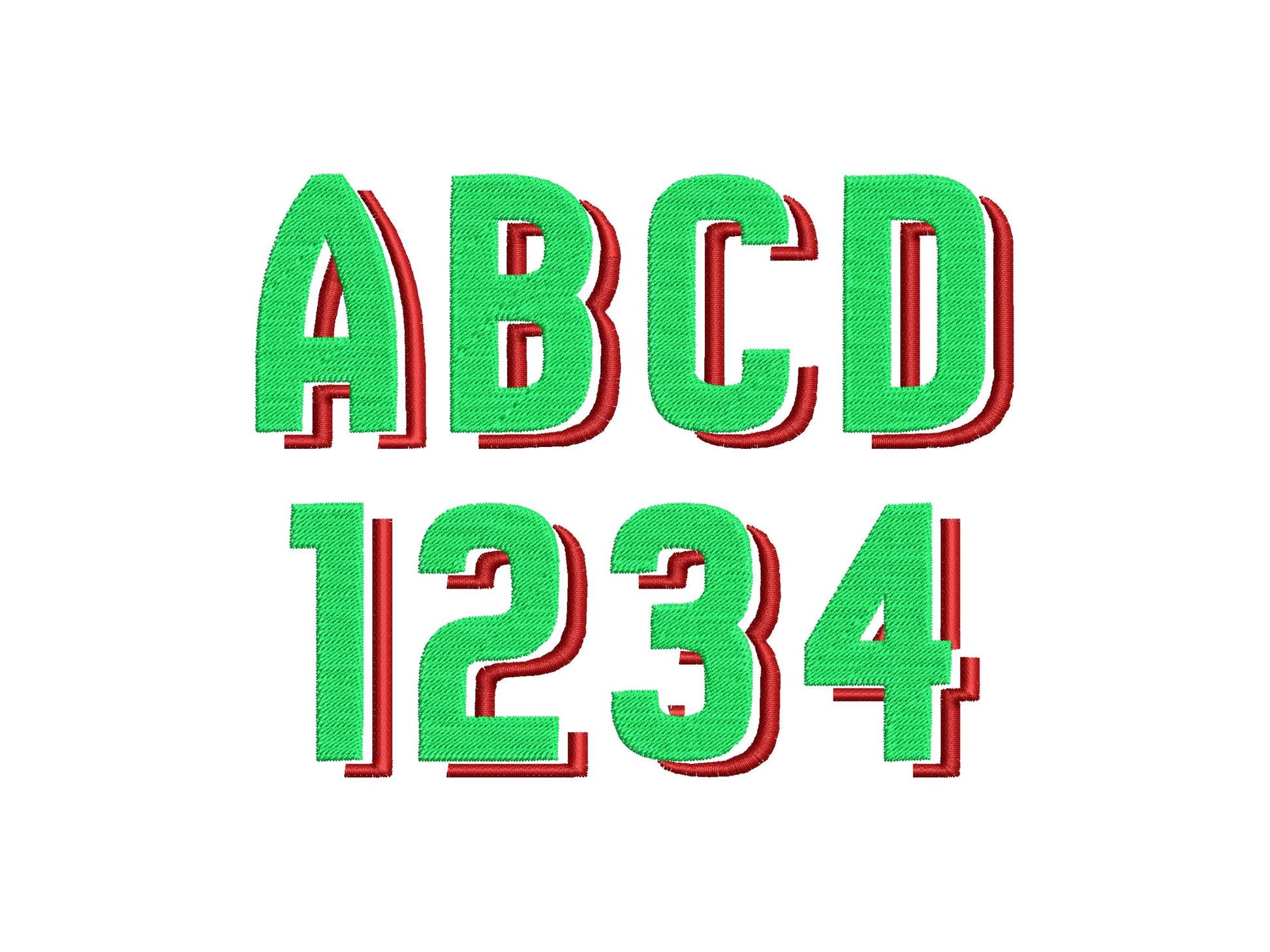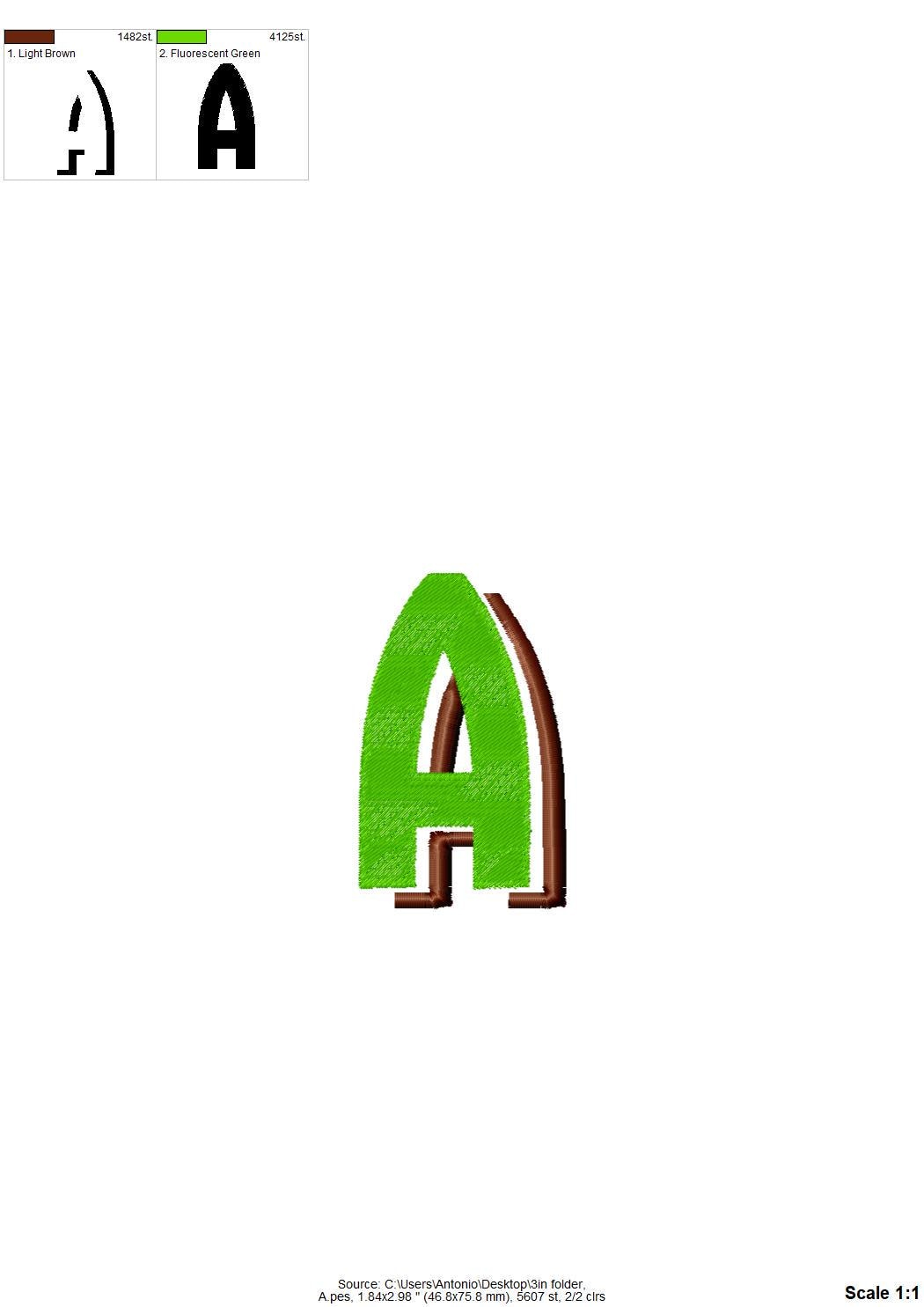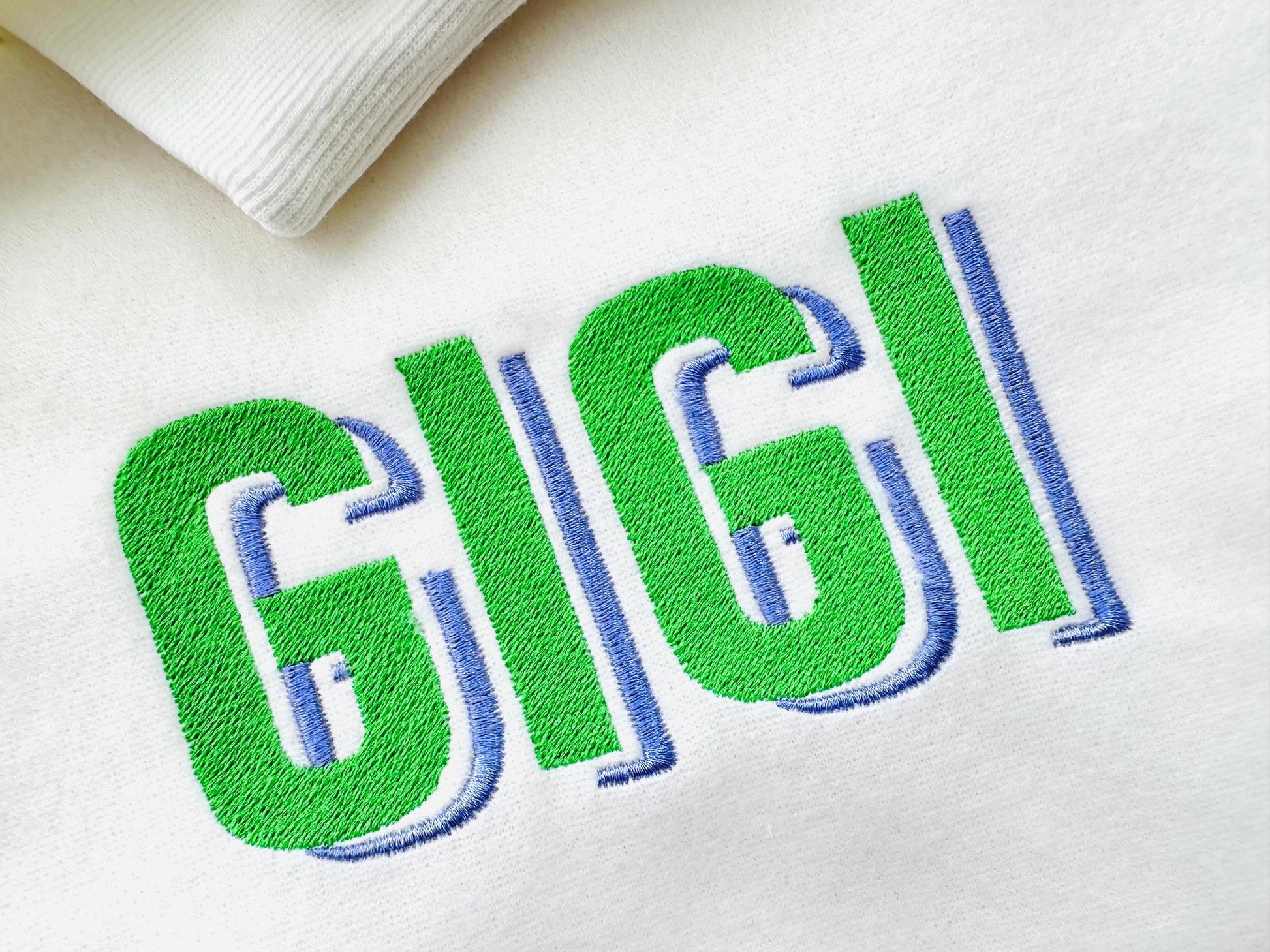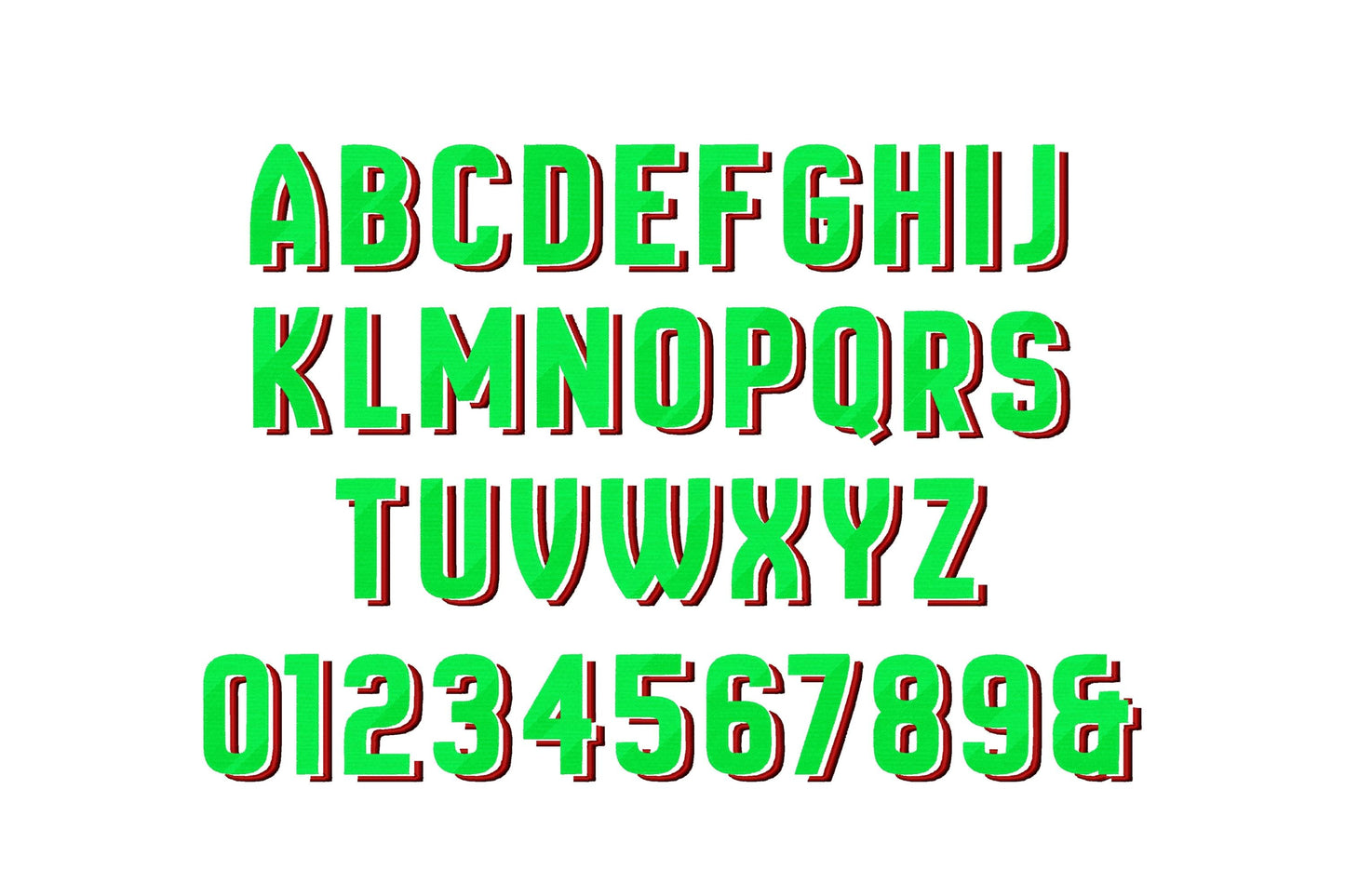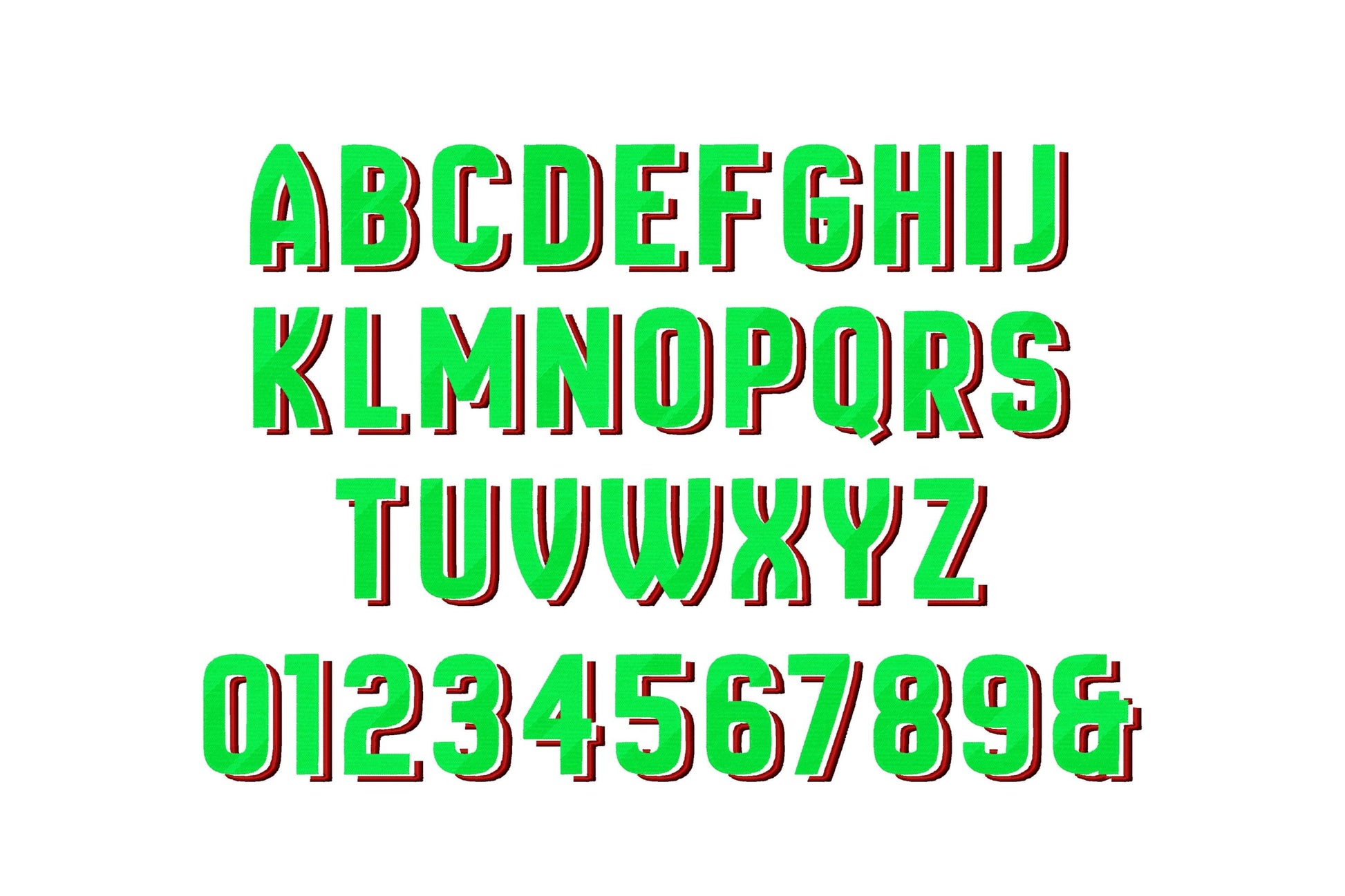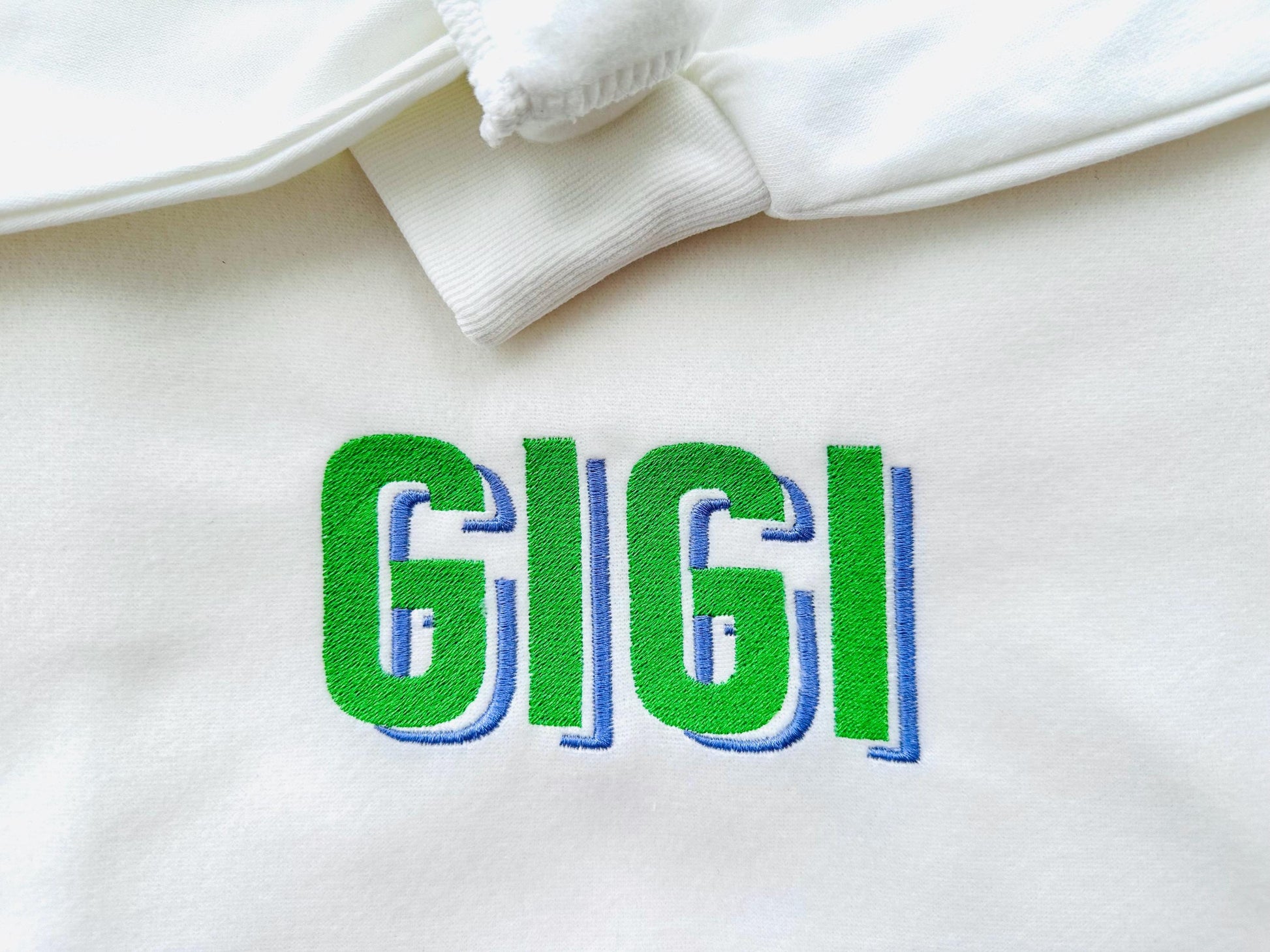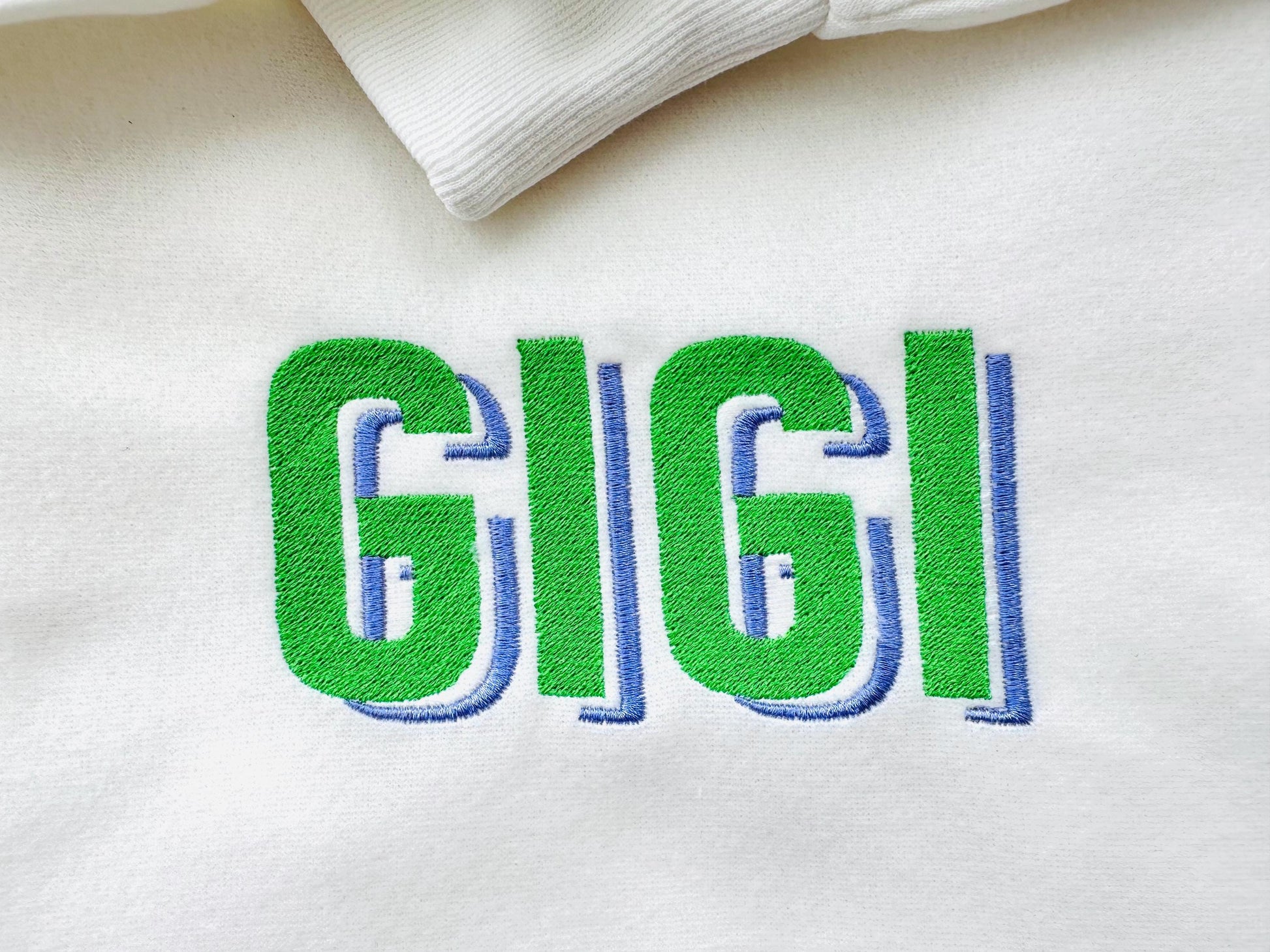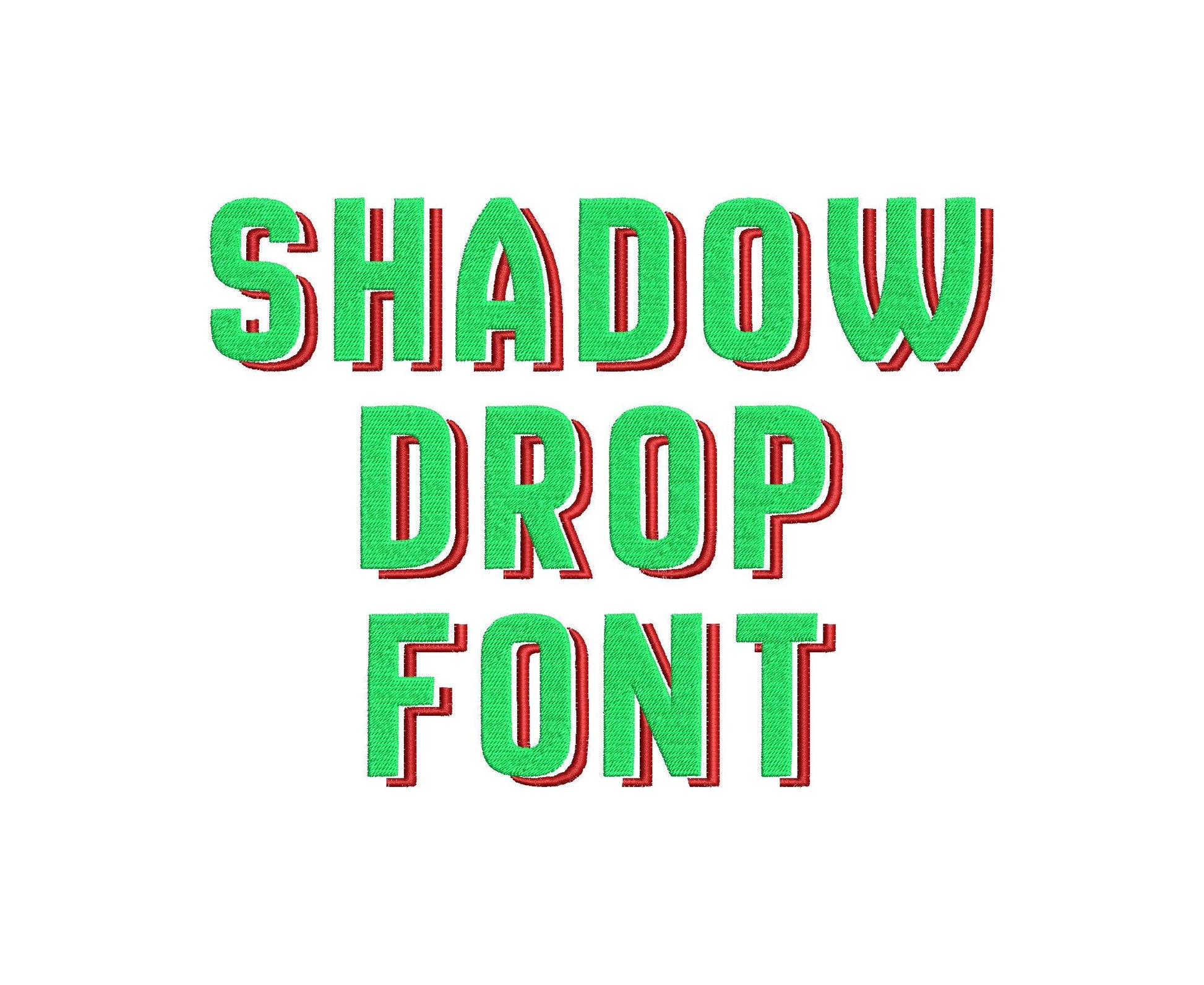
Or click to open the linkA bold block monogram font with a drop shadow. Great for monograms, team shirts, bags and pillows.
Uppercase letters A to Z, numbers 0 to 9 and an ampersand. Five sizes: 1.8, 2.2, 2.6, 3 and 3.4 inches. Every letter has a contrasting drop shadow.